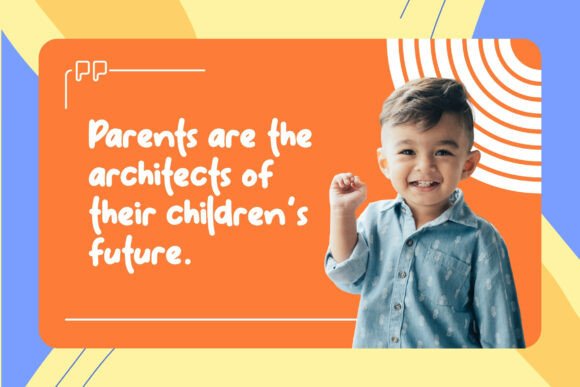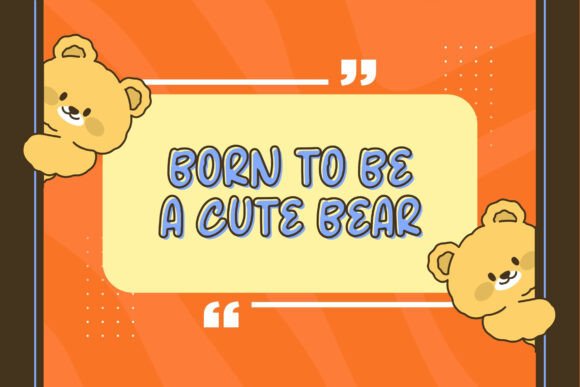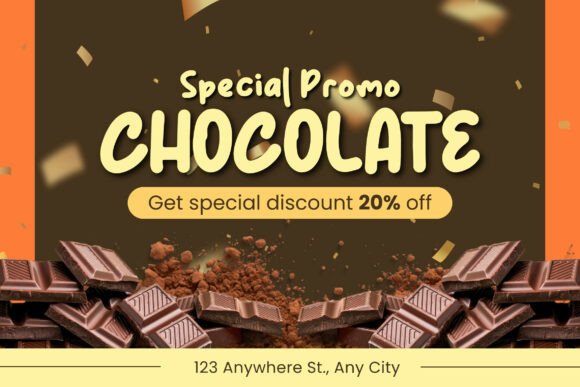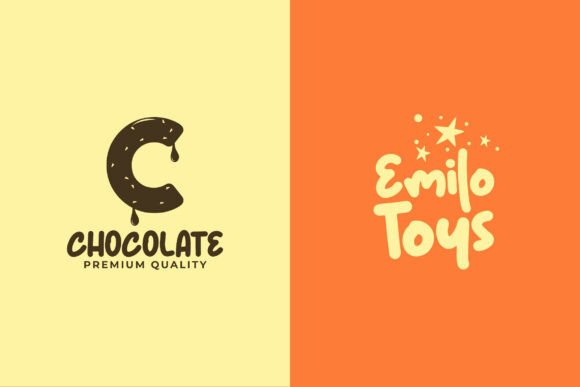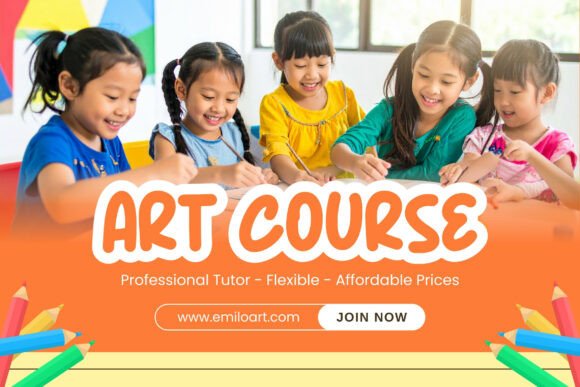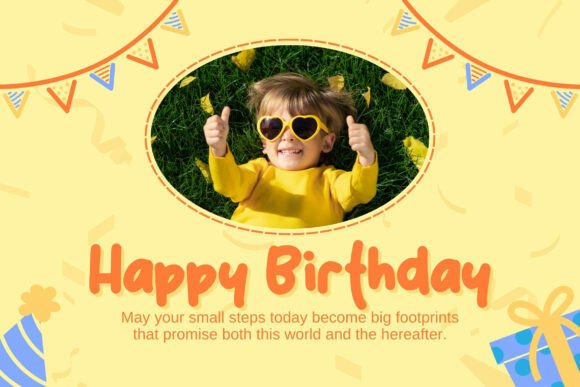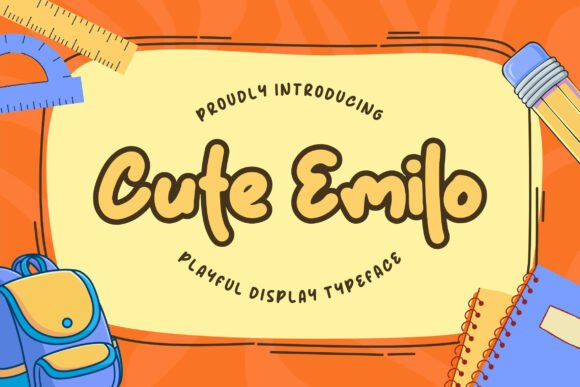
Cute Emilo Font: Adding a Playful Touch to Your Educational Designs
Are you looking for a font that can bring a fun and lively atmosphere to your educational designs? Look no further than Cute Emilo, a playful and energetic kids font designed specifically for educational and school-related projects. With its rounded shapes and lively letterforms, Cute Emilo perfectly captures the spirit of creativity, curiosity, and childhood excitement.
The Perfect Font for Educational Designs
Cute Emilo is especially created for designers and crafters who want to create engaging and fun learning materials for kids. This font is perfect for school worksheets, educational materials, children’s books, and learning content. It’s also great for classroom posters, teaching visuals, and kids branding with a fun learning theme. With Cute Emilo, you can add a playful touch to your designs and make learning more enjoyable for kids.
Key Features of Cute Emilo Font
• Playful and Energetic: Cute Emilo is a playful and energetic font that is sure to capture the attention of kids and make learning more fun.
• Rounded Shapes: The font features rounded shapes that give it a friendly and approachable feel, perfect for educational designs.
• Lively Letterforms: The letterforms are lively and expressive, making the font perfect for titles, headlines, and playful typography.
• Easy to Read: Despite its playful nature, Cute Emilo is easy to read, making it perfect for educational materials where clarity is important.
Perfect Use Cases for Cute Emilo Font
Cute Emilo is a versatile font that can be used in a variety of educational designs, including:
• School Worksheets and Educational Materials: Add a playful touch to your worksheets and educational materials and make learning more fun for kids.
• Children’s Books and Learning Content: Use Cute Emilo to create engaging and interactive children’s books and learning content.
• Classroom Posters and Teaching Visuals: Create eye-catching classroom posters and teaching visuals that will capture the attention of kids and inspire learning.
• Kids Branding with a Fun Learning Theme: Use Cute Emilo to create fun and engaging branding materials for kids, such as logos, brochures, and website headers.
• Titles, Headlines, and Playful Typography: Add a playful touch to your designs with Cute Emilo’s lively letterforms and use it for titles, headlines, and playful typography.
Why Choose Cute Emilo Font?
There are many reasons why you should choose Cute Emilo font for your educational designs. Here are a few:
• Unique and Playful Design: Cute Emilo has a unique and playful design that will set your designs apart from others.
• High-Quality: Cute Emilo is a high-quality font that is designed to work perfectly in a variety of design software.
• Support for Multiple Languages: The font supports multiple languages, making it perfect for use in international educational designs.
Cute Emilo font is a playful and energetic kids font that is perfect for educational designs. With its rounded shapes and lively letterforms, it’s sure to bring a fun and lively atmosphere to your designs. Whether you’re creating school worksheets, children’s books, or classroom posters, Cute Emilo is the perfect choice. So why wait? Download Cute Emilo font today and start creating engaging and fun educational designs for kids!